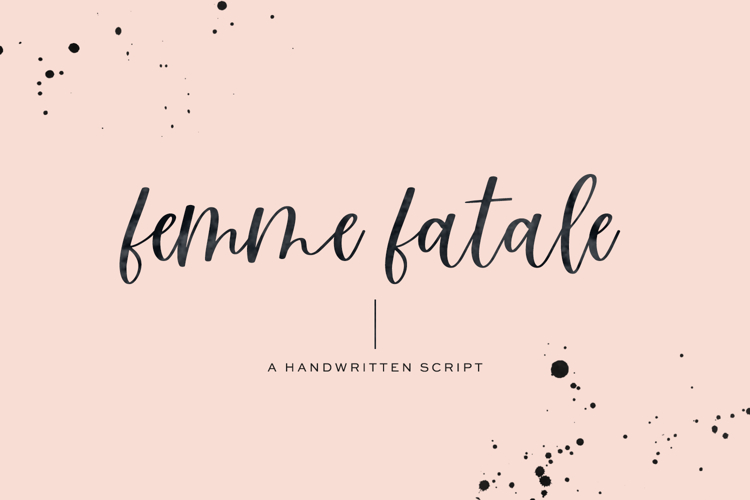
Femme Fatale Script
Introducing Femme Fatale Script, a modern calligraphy script with an effortless look + feel and super clean edges.
Femme Fatale is best for:
- logos + branding that need a casual, contemporary script
- wedding invitation design for the modern bride
- header elements that need a feminine touch
- crafting projects on your Cricut, Silhouette, or other vinyl cutting machine (Femme Fatale features a super clean, smooth edge for cutting)
- 1 alternate character (f), and 13 ligatures: bb, dd, ff, gg, ll, mm, nn, pp, rr, sp, ss, st, tt